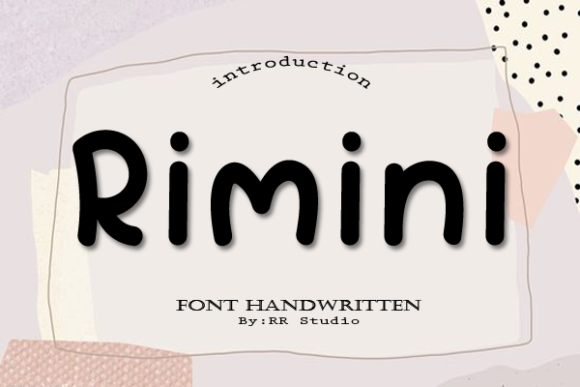
Dive into the world of Rimini Font, a charming script font family that exudes elegance and personality. Crafted with meticulous attention to detail by RR Studio, this font collection is designed to make your designs shine with a handwritten touch.
Rimini Font is more than just a font; it's an artistic expression that adds a personal touch to your creations. Visualize the joy of your loved ones as they receive thank you cards adorned with Rimini's graceful strokes. Let your heartfelt quotes resonate with a touch of individuality, thanks to this font's ability to convey emotions effortlessly. From greeting cards that warm hearts to logos that leave a lasting impression, Rimini Font is your perfect companion.
Business cards crafted with Rimini Font stand out from the crowd, exuding professionalism and creativity. Elevate your designs with a customized touch that speaks volumes about your brand's unique identity. Whether you're a seasoned designer or just starting your creative journey, Rimini Font is the perfect choice to add a captivating charm to your projects.
Unlock your creativity and explore the endless possibilities with Rimini Font. Let your designs bloom with a touch of elegance, a dash of charm, and a whole lot of heart. Embrace the beauty of handwritten artistry and watch your creations come to life with Rimini Font.